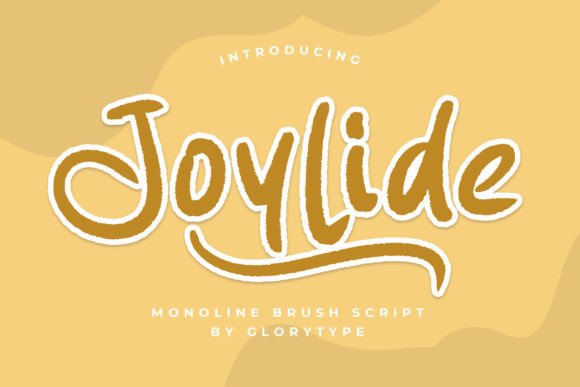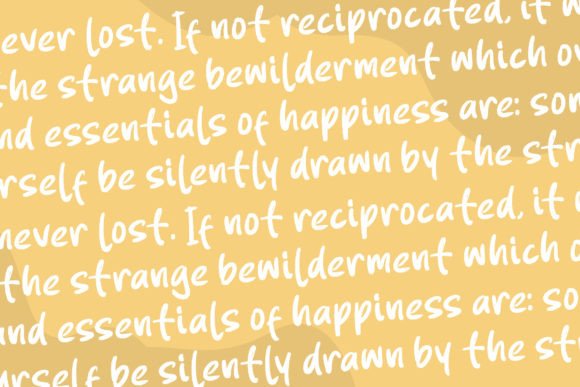
About Joylide Font
Joylide, a beautiful monoline handwritten font, emerges as a versatile and elegant choice for a diverse range of design applications. Whether it’s logos, branding projects, homeware designs, product packaging, mugs, quotes, posters, shopping bags, T-shirts, book covers, name cards, invitation cards, greeting cards, labels, photography, watermarks, special events, or any other creative project that demands a beautiful script taste, Joylide is designed to deliver.
The beauty of Joylide lies in its monoline handwritten style, which brings a sense of fluidity and grace to your designs. The font’s elegant strokes add a timeless quality, making it an excellent choice for projects where a balance of simplicity and sophistication is desired. Its adaptability ensures that it seamlessly integrates into various design needs, providing your creative projects with a touch of script charm.
Consider employing Joylide for your branding initiatives, where a beautiful script can enhance the visual identity of your business. Whether it graces product packaging, adds a personal touch to T-shirts, or adorns name cards and invitations, Joylide brings a delightful script taste to the forefront.
Joylide’s suitability for special events, such as weddings, is evident in its ability to convey an elegant touch to invitations, greeting cards, and labels. The font’s harmonious design ensures that your projects stand out with a tasteful and beautiful aesthetic.
The adaptability of Joylide extends seamlessly to both digital and print materials, making it a versatile asset in your design toolkit. From social media quotes that require a touch of elegance to homeware designs seeking a monoline script, Joylide effortlessly integrates into diverse design contexts.
In essence, Joylide is more than a font; it’s a design element that brings a beautiful monoline script taste to your projects. With its graceful handwritten style, Joylide becomes a valuable tool, allowing you to infuse a sense of charm into a wide array of design endeavors. Embrace the beauty of Joylide and let it enhance the visual appeal of all your lovely projects.